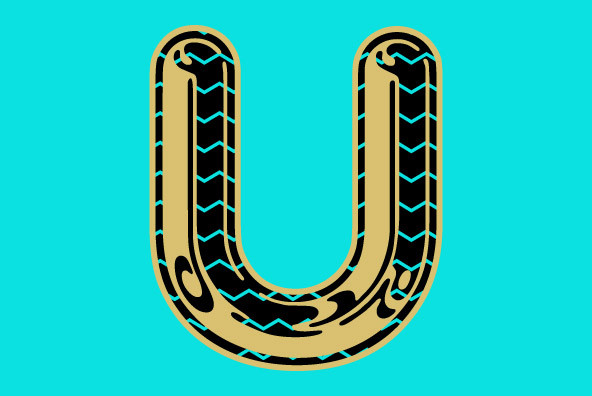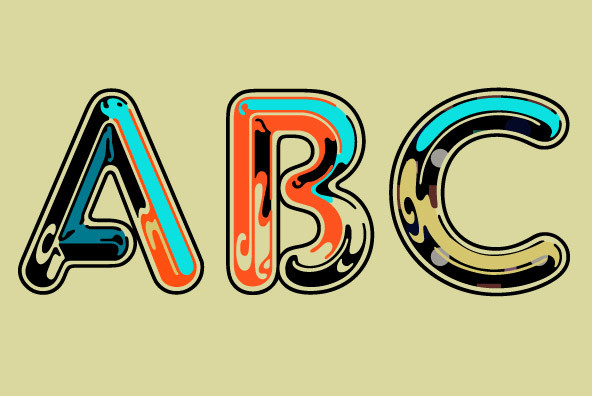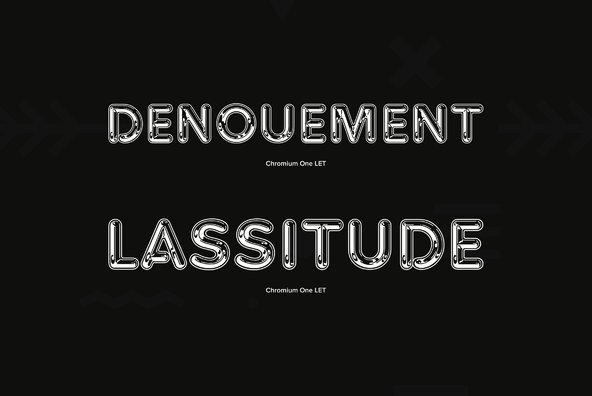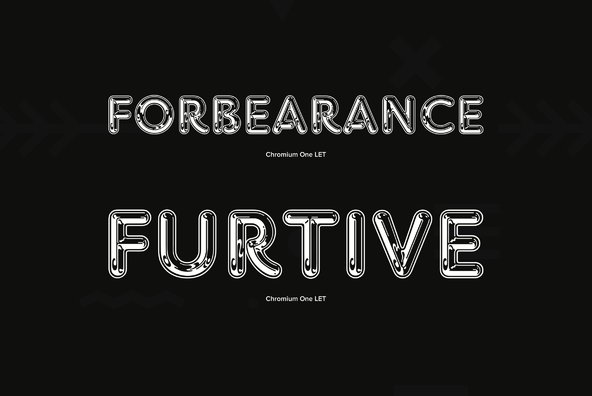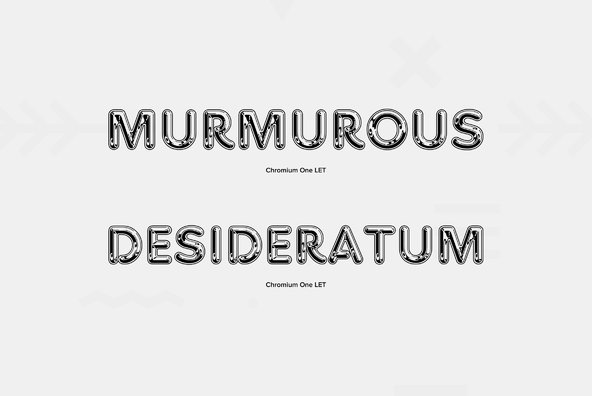
This typeface creates a strong, highly polished chromium impression as its name implies and was originally inspired by airbrush technique.
This typeface creates a strong, highly polished chromium impression as its name implies and was originally inspired by airbrush technique. A highly stylized and unusual display face that can be used across a variety of commercial applications. Created by the well-known British lettering designer David Harris.